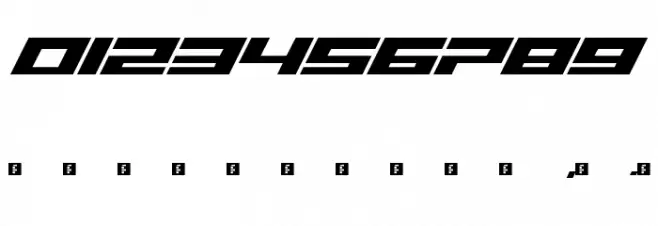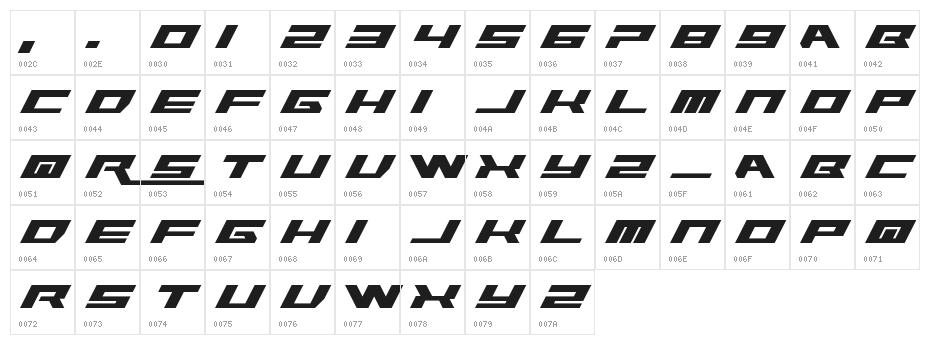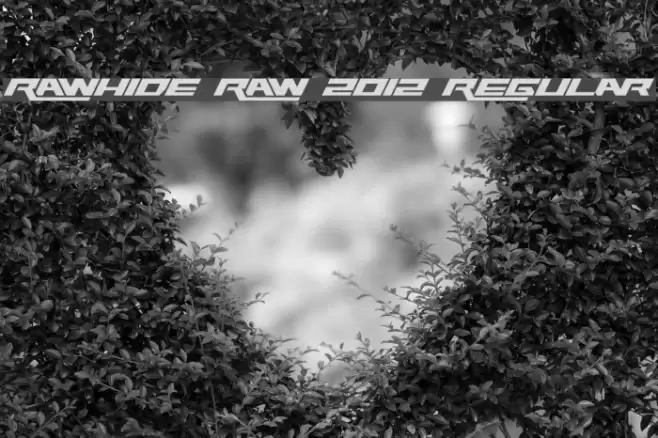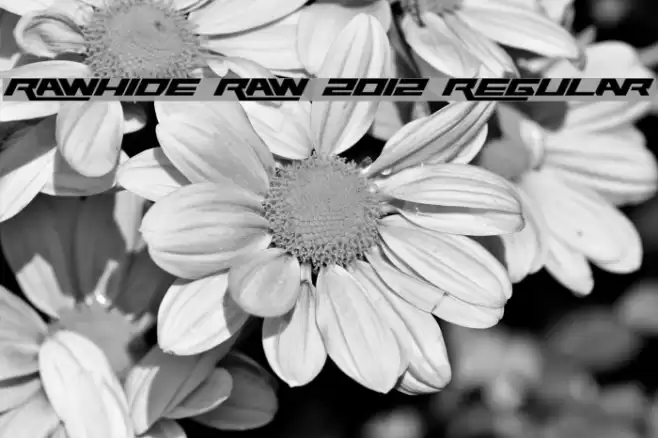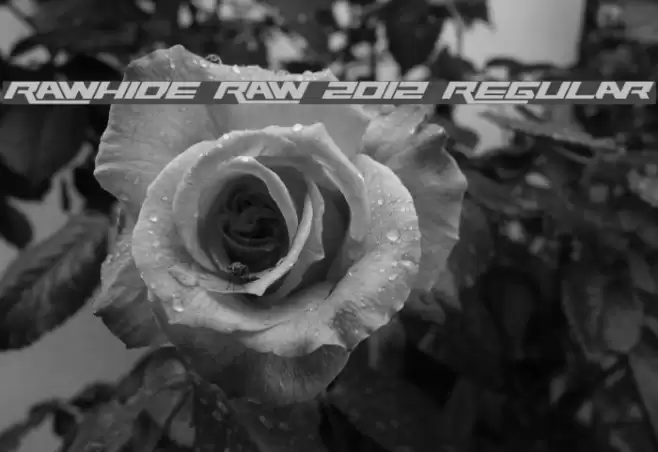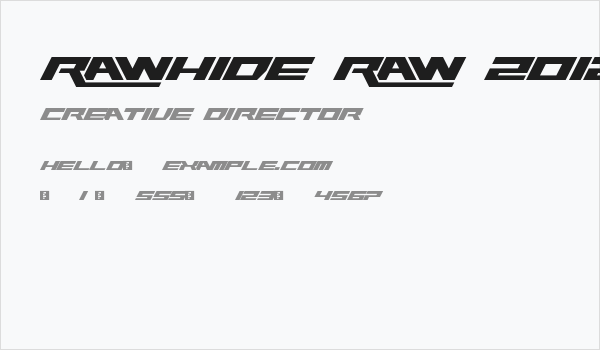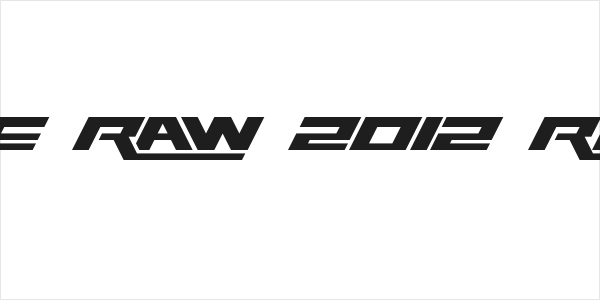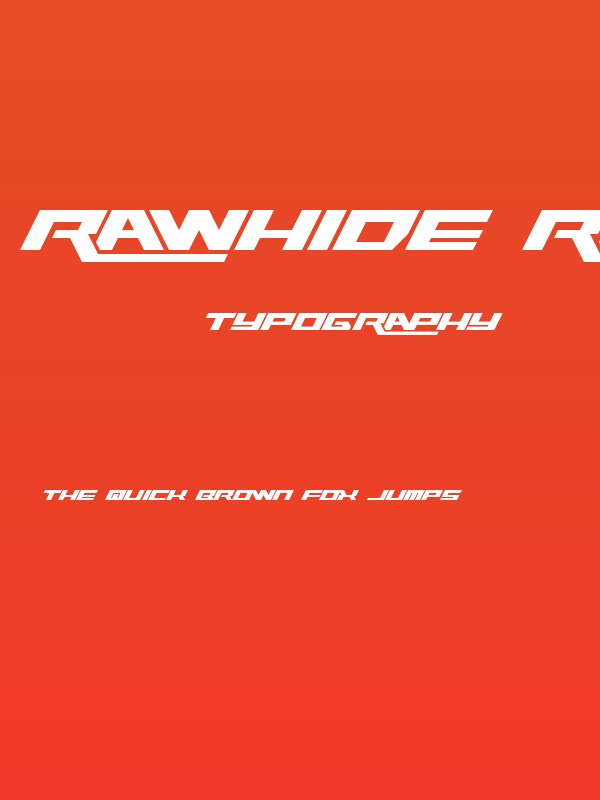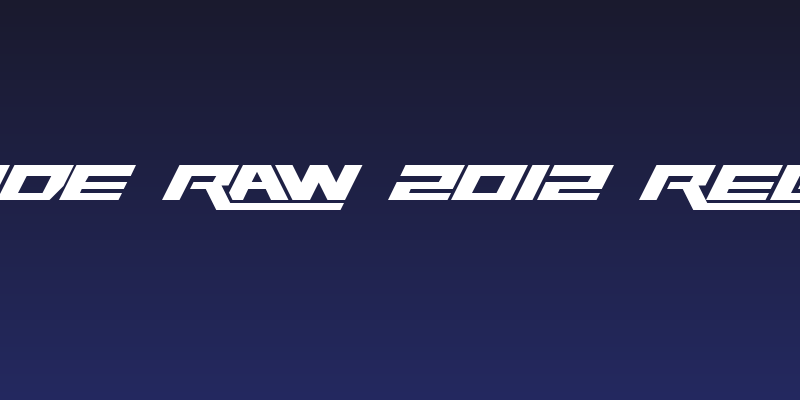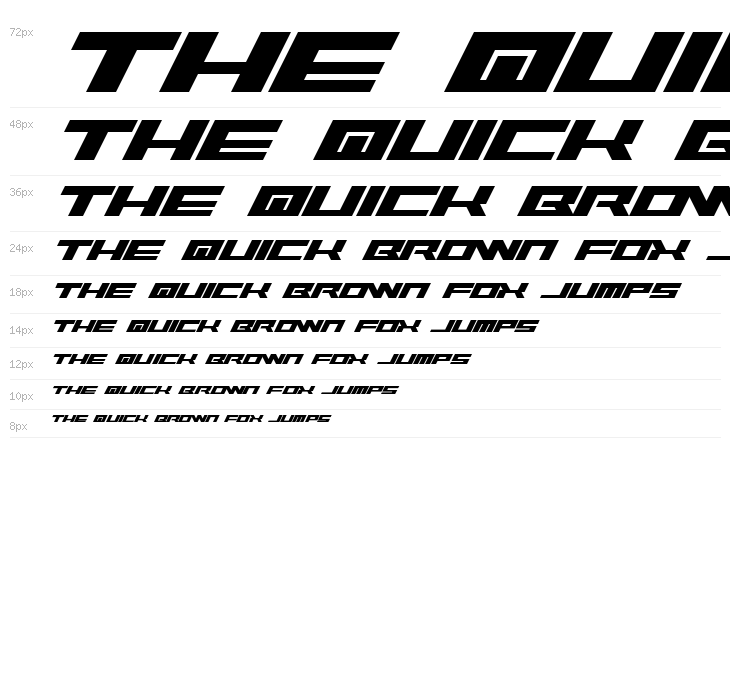
Rawhide Raw 2012 Regular Font
Rawhide Raw 2012 Regular Description
This font features a bold, angular design with a futuristic and dynamic appearance. The characters are constructed with sharp edges and diagonal cuts, giving them a sense of motion and energy. The uppercase letters are particularly striking, with a consistent height and width that creates a uniform look. The lowercase letters maintain the same angular style, ensuring cohesion across the typeface. Numbers and special characters are designed to match the bold and edgy aesthetic, making this font suitable for attention-grabbing designs. The overall style is modern and assertive, ideal for projects that require a strong visual impact.
Proposed ProjectsIdeal for sports branding, video game titles, sci-fi movie posters, and dynamic logo designs.